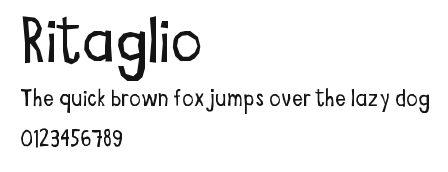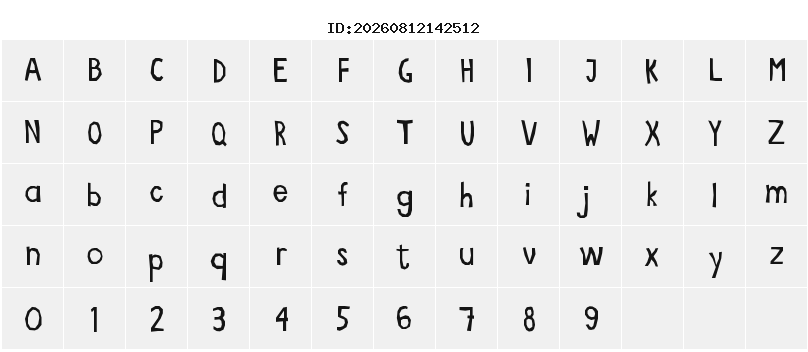
• Font Name: Ritaglio
• Designer: Emilie Rollandin
About Ritaglio.ttf
Ritaglio.ttf is a modern, elegant sans-serif font designed for ultimate readability and visual harmony. Perfect for branding, headlines, web design, and print materials.